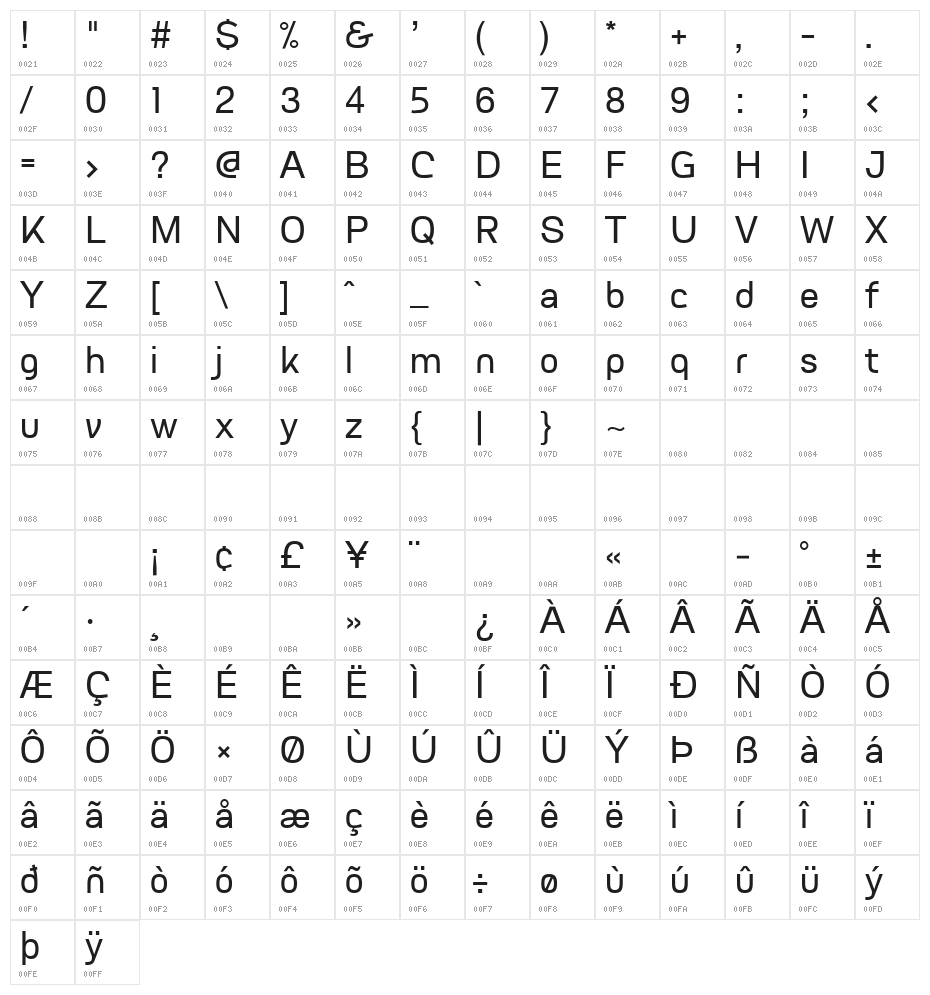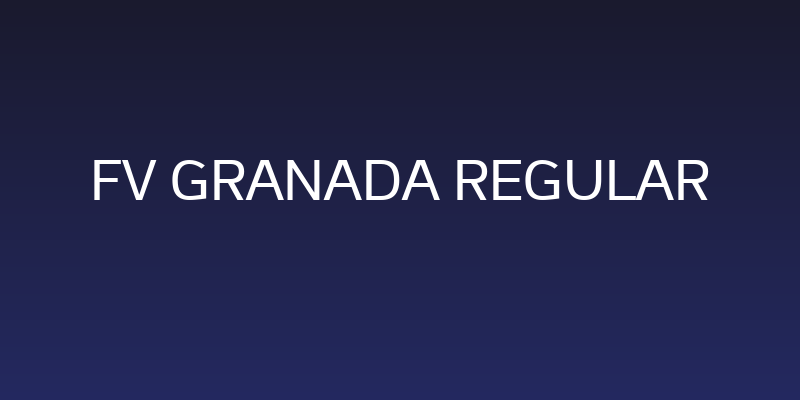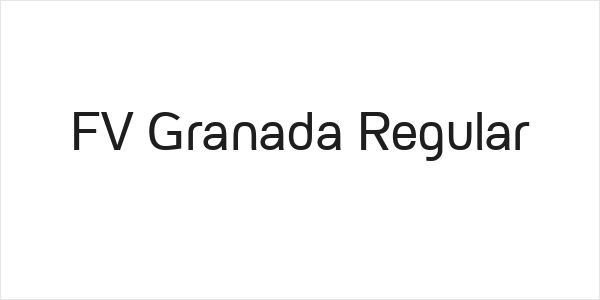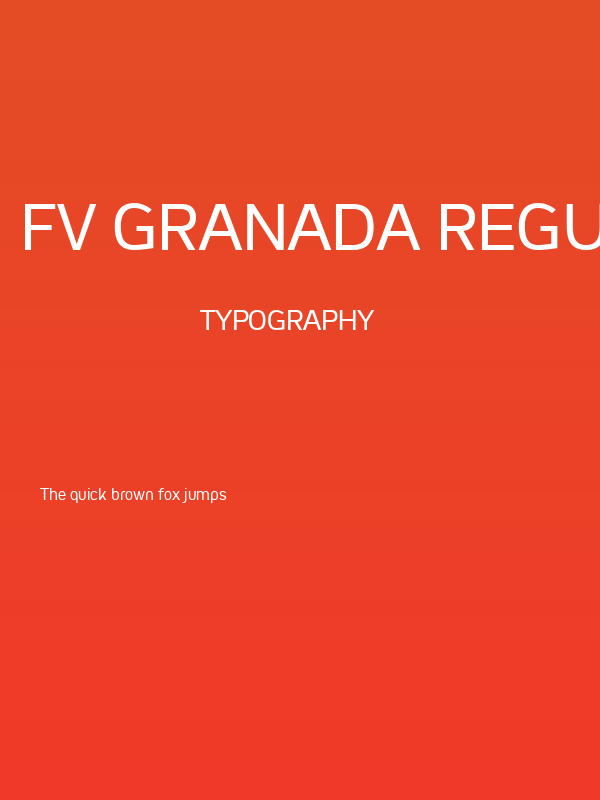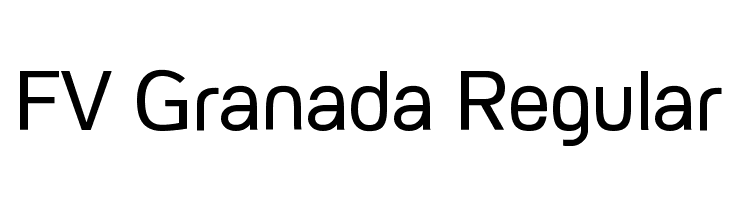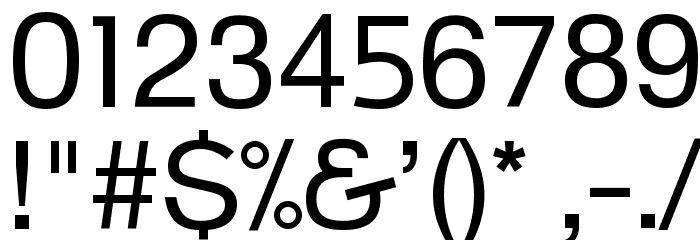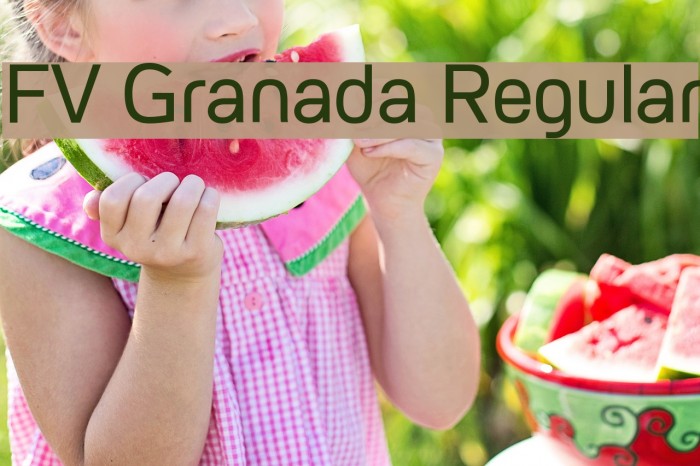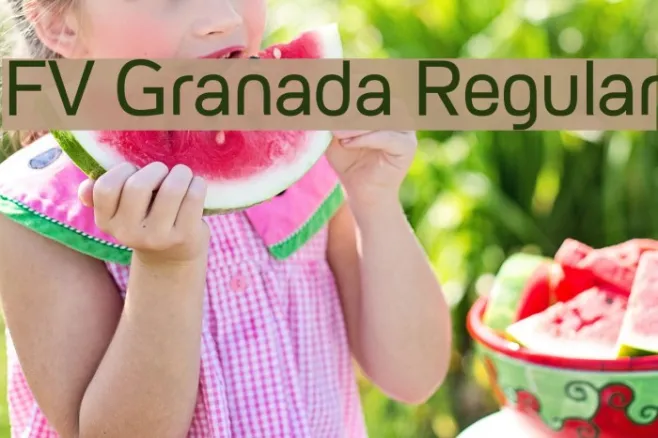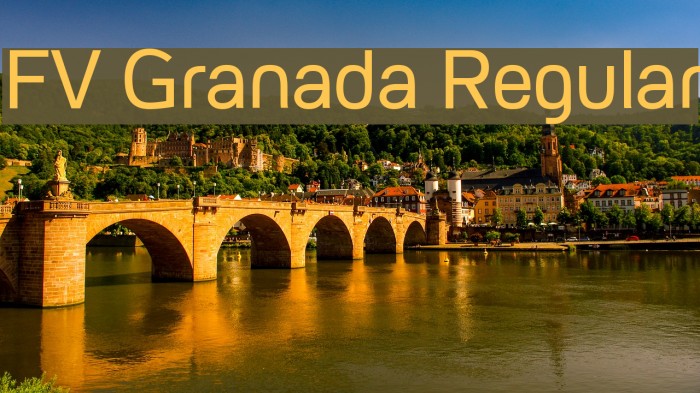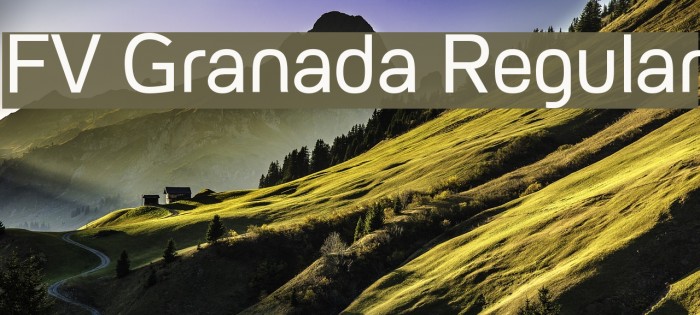
FV Granada Regular Font
FV Granada Regular Description
This font features a clean and modern sans-serif style, characterized by its geometric shapes and uniform stroke widths. The uppercase letters are bold and assertive, while the lowercase letters maintain a consistent and harmonious appearance. The numerals are clear and easy to read, making them suitable for various applications. Special characters are well-defined, adding versatility to the font's use. The overall design is minimalistic, with a focus on readability and functionality, making it ideal for both digital and print media.